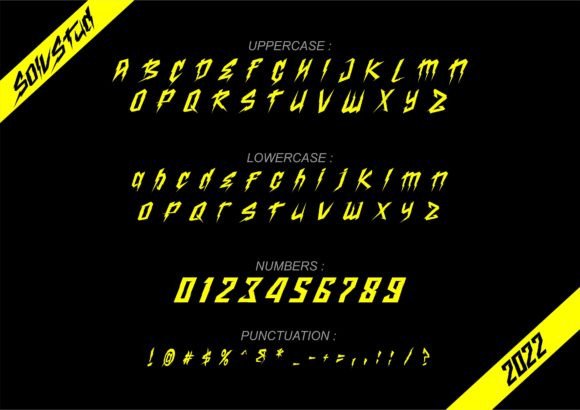
Introduction to Bledek Font
Have you ever stared at a blank canvas, waiting for that spark of creativity to strike? For designers, this moment can be both exhilarating and intimidating. The pressure to create something unique and impactful can be overwhelming, but with the right tools, it can also be a thrilling challenge. That’s where the Bledek Font comes in – a bold and thunder-like display font that’s perfect for making a statement.
Whether you’re working on a creative project that requires a high-quality design resource or simply need a font that can cut through the noise, the Bledek Font is an invaluable asset. With its sleek, modern design and transparent background, it’s an excellent choice for designers looking to add a touch of sophistication to their work. And the best part? It’s available for free download, making it an accessible resource for designers of all levels.
Key Features of Bledek Font
- Unique, modern font with a transparent background, ideal for use on images, logos, or graphics.
- Designed with a focus on readability, making it perfect for use in a range of creative projects.
- Perfect for designers and artists looking for a high-quality, free font to elevate their creative project.
Honest Review: Bledek Font
As a designer, I’m always on the lookout for high-quality fonts that can elevate my creative projects. Recently, I had the chance to work with the Bledek Font, and I must say, it’s been a pleasant experience.
What works well: ✨ The Bledek Font is incredibly versatile and can be used for a wide range of creative projects. Its modern design and sleek lines make it perfect for graphic design, web design, and even digital art. The font also comes with a transparent background, which is a huge plus for designers who want to add an extra layer of depth to their designs.
Additionally, the Bledek Font is available for free download, making it a great resource for designers on a budget. The high quality of the font is evident in its crisp lines and smooth curves, which ensure that it looks great even at large font sizes.
- Limitations: ⚠️ While the Bledek Font is a great resource, it’s not suitable for all types of projects. For example, it may not be the best choice for projects that require a more traditional or classic font style.
Overall, I’m impressed with the Bledek Font and would definitely recommend it to designers looking for a high-quality, versatile font for their creative projects.
Bledek Font
The Bledek Font is a high-quality design resource ideal for creative projects that require a unique and modern look. This free download is perfect for designers and artists looking to add a touch of sophistication to their work.
Tips for Getting the Most Out of Bledek Font